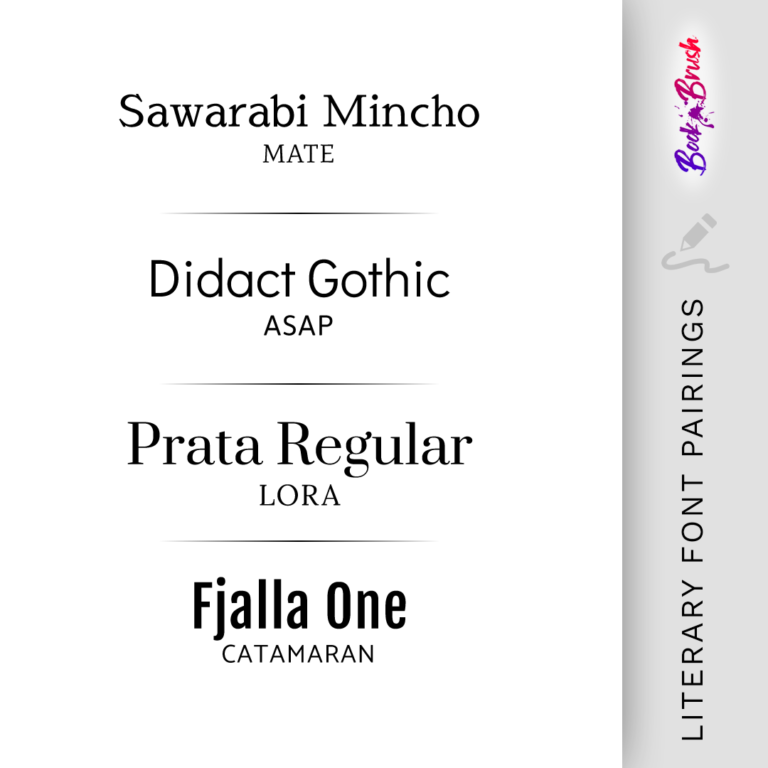
The Best Book Cover Fonts To Use For Your Literary Fiction Book
Literary fiction readers want sophistication and depth, and the book cover is no exception. The cover is the face of your book and should accurately reflect it. When looking at a cover, a reader should be able to identify the genre and get a sense of its tone within seconds. One of the important key factors in conveying tone, mood, and genre with a book cover is font. The font used can either make or break a cover. If the wrong font were to be used, it could confuse the reader. Below, we’ll discuss the best book cover fonts and font pairings for your literary fiction book.
Garamond
This font is relatively simple but also a classic choice, as it exudes elegance. You could easily use this font on historical literary book covers.
ASAP
This is a light and clean font that works well for contemporary or urban literary fiction book covers.
Caslon
The little tail at the end of each letter is the perfect touch that makes this font special. It’s timeless and would be a great font to use on traditional or historical literary book covers.
Lora
If you’re looking for a warm but classic font, this could be it. This is an excellent font for contemporary literary fiction book covers.
Gotham
This font is bold, striking, and would make a statement. This font could be used on modern literary fiction book covers.
Avenir
Avenir is a soft and elegant font choice. It’s simple but clean and easily readable. You can use this font on a modern literary fiction book cover.
Didact Gothic
This is another font that’s simple but still a great contender. It brings a quiet vibe, and it’s ideal for minimalist covers.
Font Pairings
Font pairings are an important aspect to consider when designing a book cover. The last thing you’ll want to do is have your title clash with the font in which your name is written. For your cover to flow well, your fonts need to be compatible. Below, we’ll list some of our favorite font pairings. Also, check out these blogs: font pairings and typography tips to learn more!
More font pairings:
• Garamond (Title) and Avenir (Body)
• Caslon (Title) and Proxima Nova (Body)
• Lora (Title) and Source Sans Pro (Body)
• Playfair Display (Title) and Proxima Nova (Body)
• Didact Gothic (Title) and Playfair Display (Body)
• Catamaran (Title) and Baskerville (Body)
• Gotham (Title) and Caslon (Body)
• Lora (Title) and Allura (Body)
• ASAP (Title) and Garamond (Body)
In Conclusion
In the end, designing a literary fiction book doesn’t have to be complicated. It’s all about knowing which font works best for your cover, its genre, and font pairings.